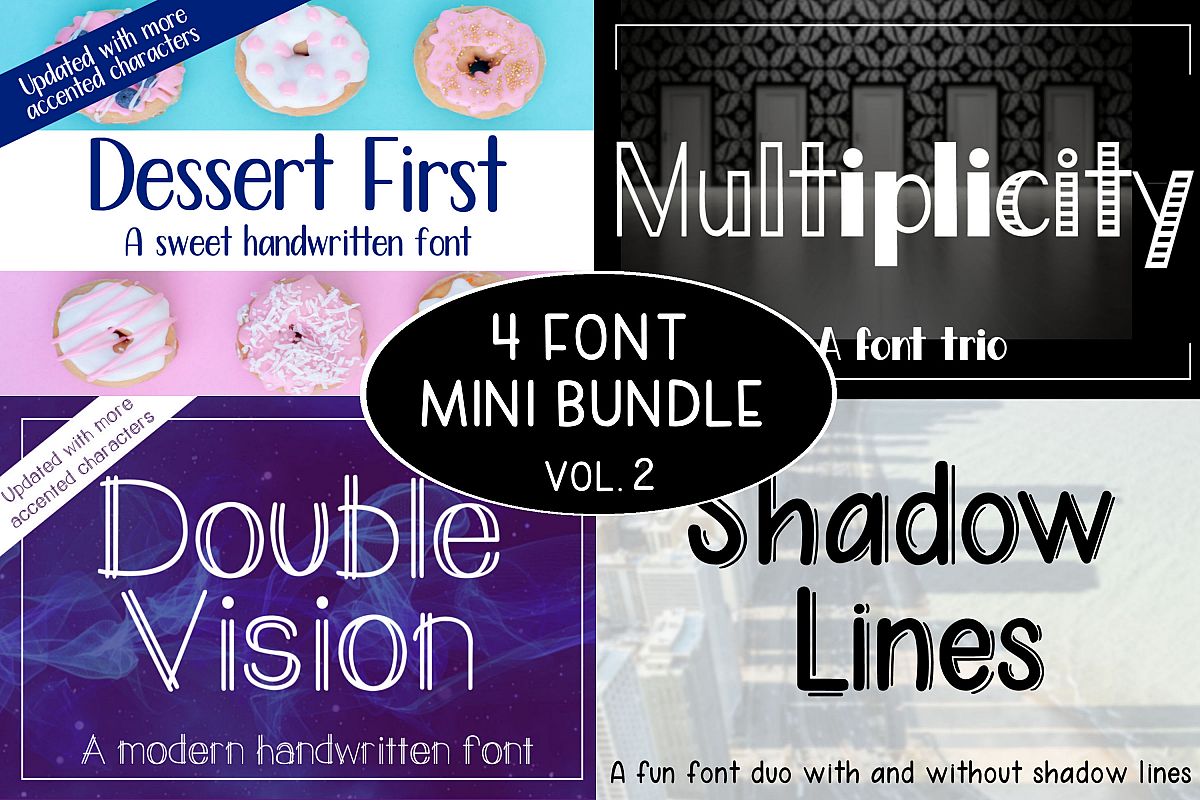
4 Font Mini Bundle - Volume 2
Introducing the 4 Font Mini Bundle Volume 2 including...
Multiplicity - A font trio (3 files)
Dessert First  - A sweet handwritten font
Shadow Lines - A fun font duo with and without shadow lines (2 files)
Double Vision - A a modern handwritten font